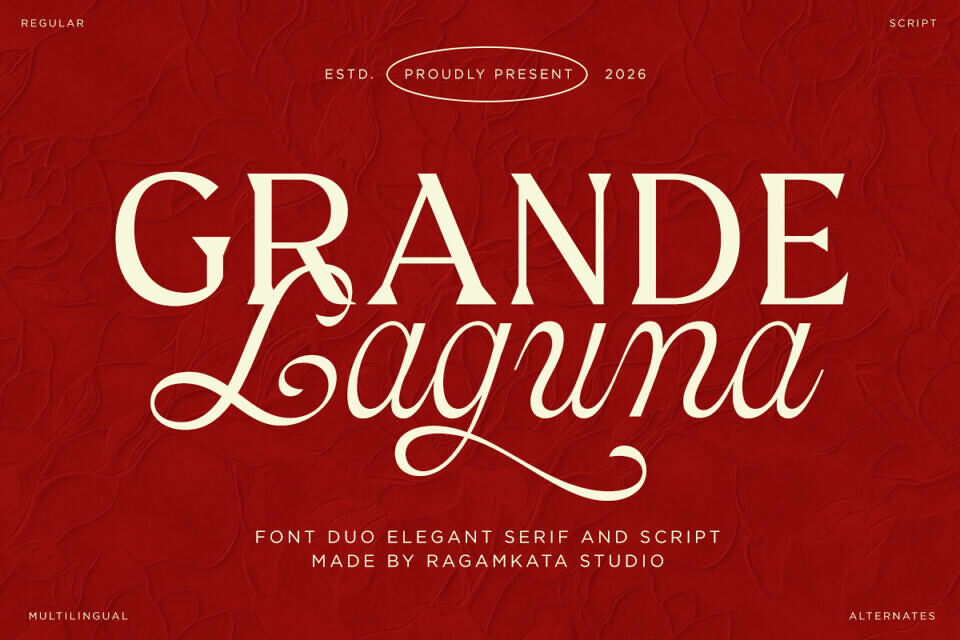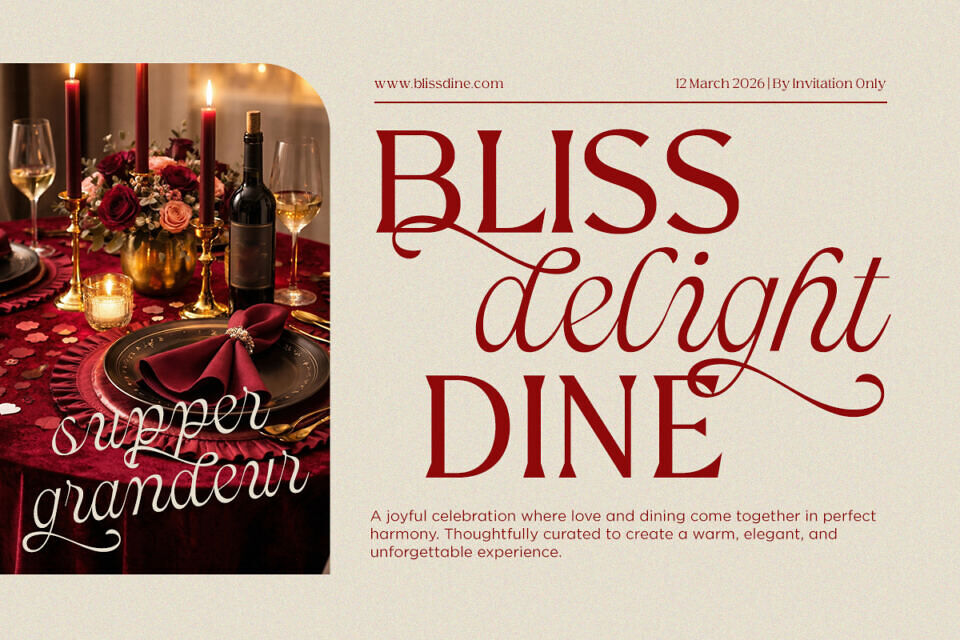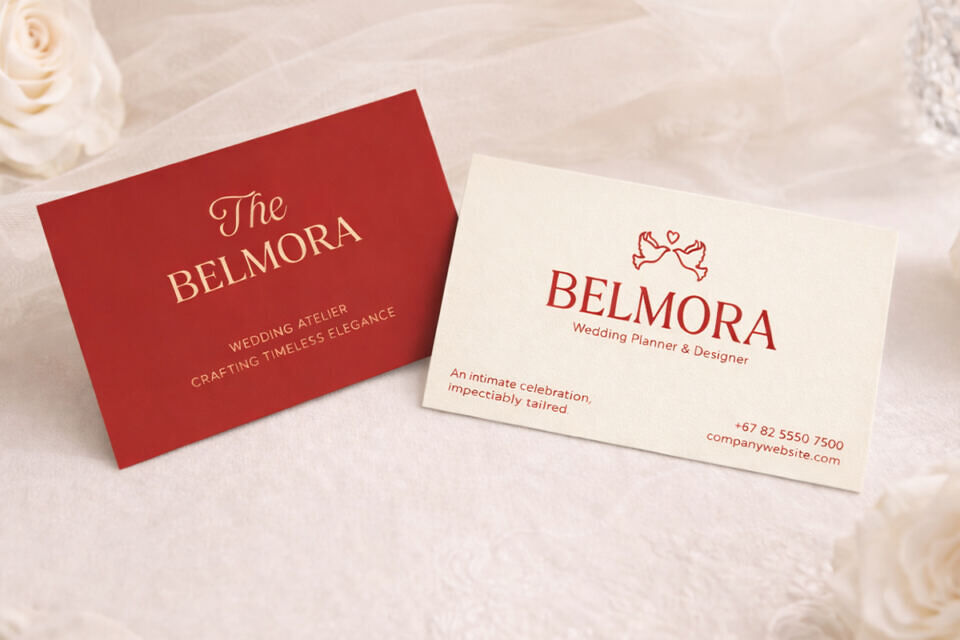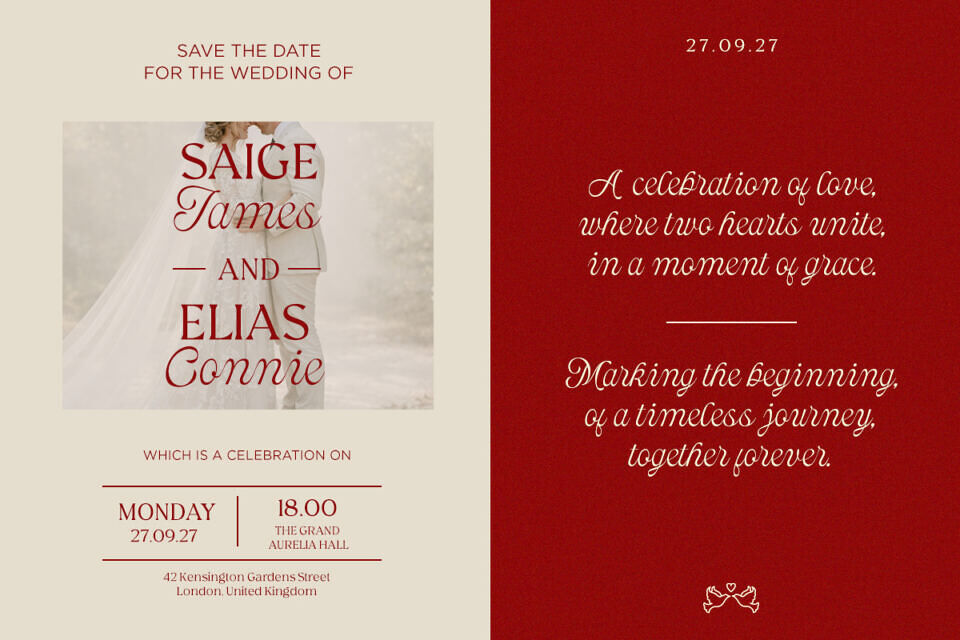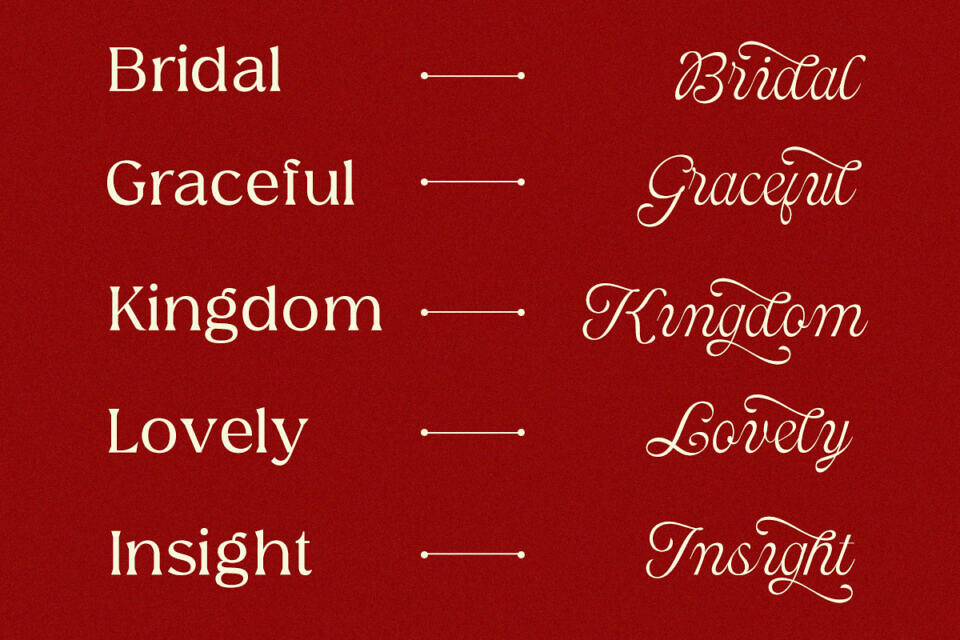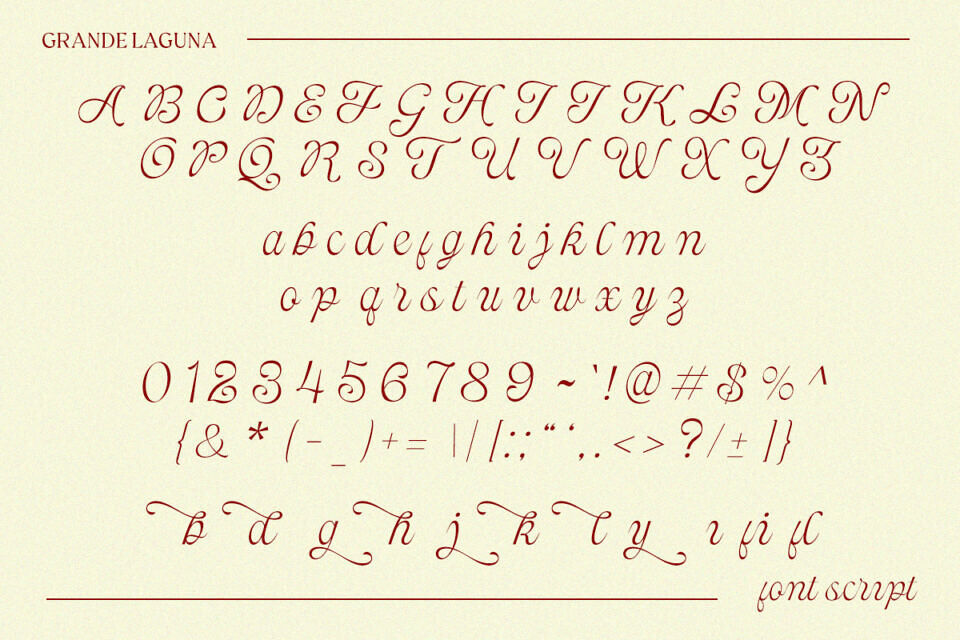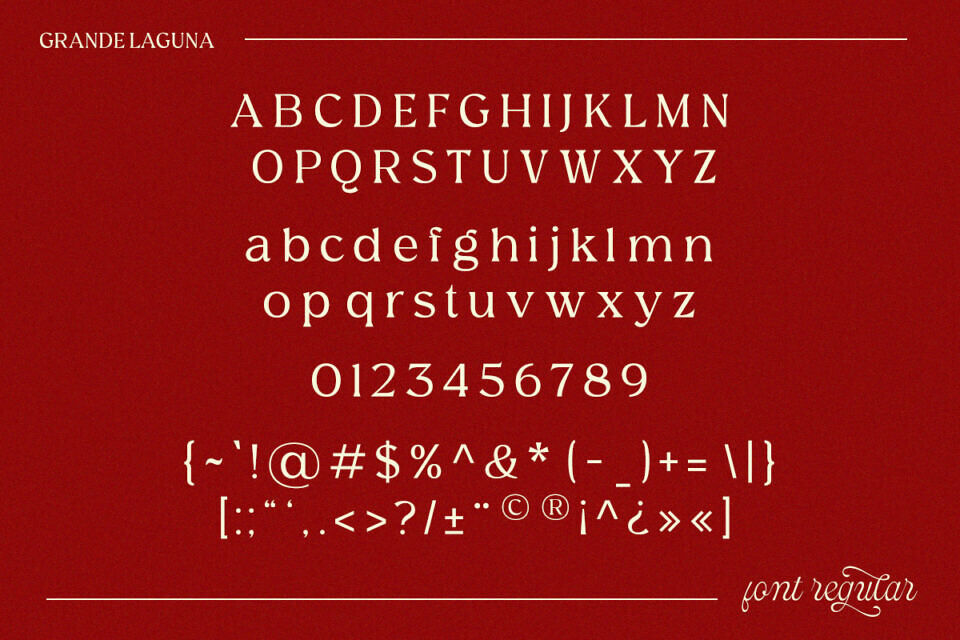
Grande Laguna is an elegant font duo that beautifully blends a refined serif with a graceful script. Designed to create harmony between structure and fluidity, it delivers a luxurious and timeless aesthetic that instantly elevates any design.
Crafted for versatility, Grande Laguna is perfect for branding, wedding invitations, editorial layouts, and high-end visual identities. The combination of clean serif forms and flowing script ligatures allows designers to create stunning typographic compositions with ease. Whether used together or separately, both styles complement each other seamlessly.